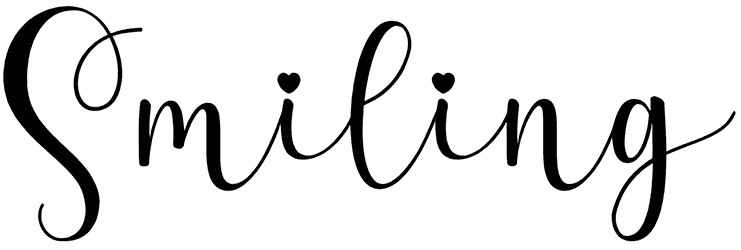
Smiling Font
Introducing Smiling, an elegant and stylish calligraphy font, ornate and beautifully designed with beginning and ending curls. Express a sweet romantic feel in a modern way that takes the viewer’s breath away.
It can help you elevate your design to a new level of creativity. This romantic font will be perfect for wedding invitations, greeting cards, luxury logos, fashion branding, and feminine projects. Start the work now and watch how the magic happens.